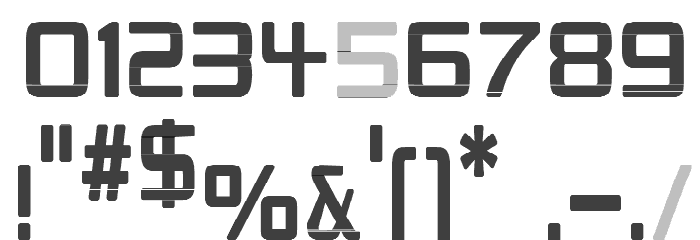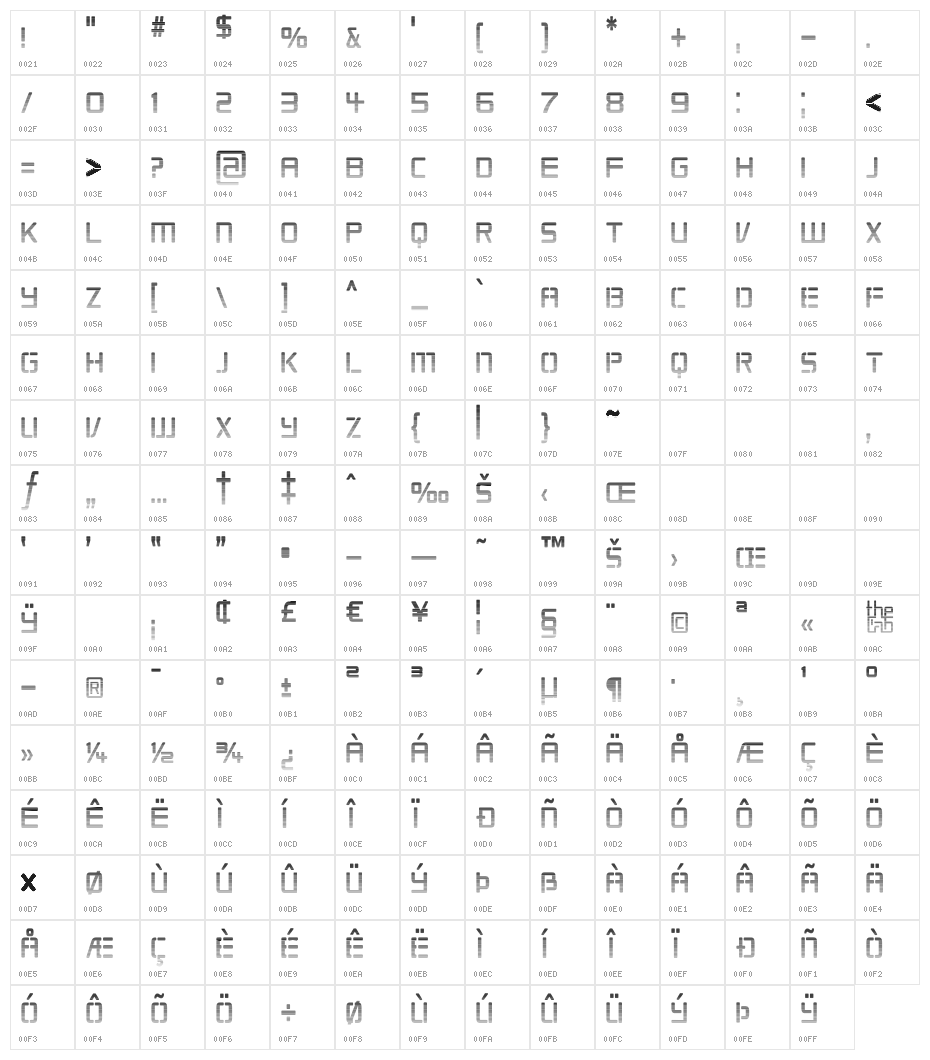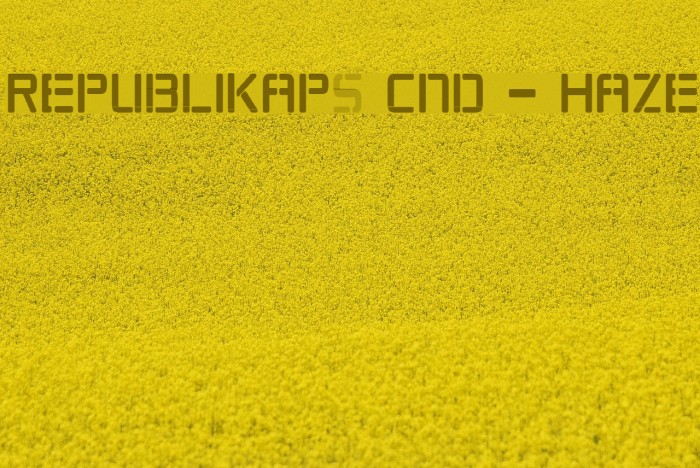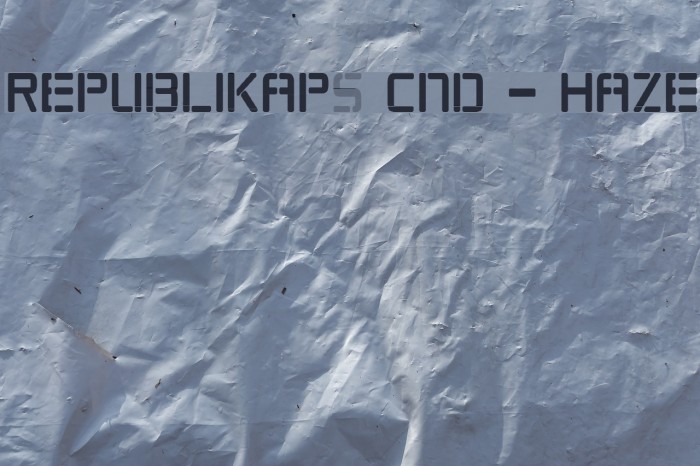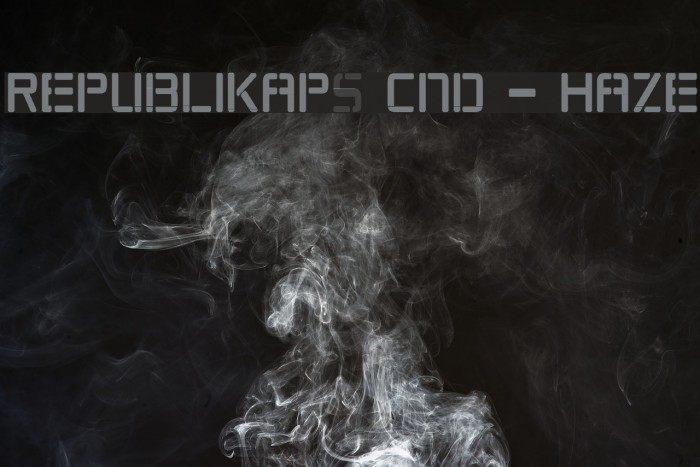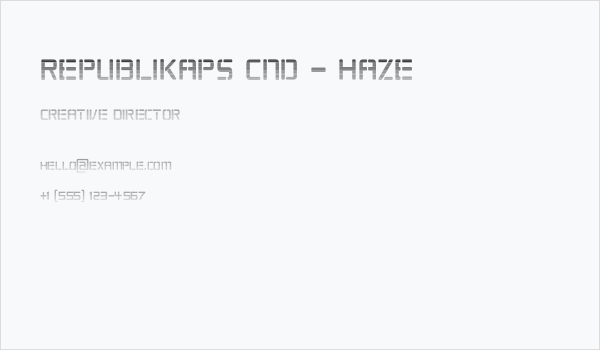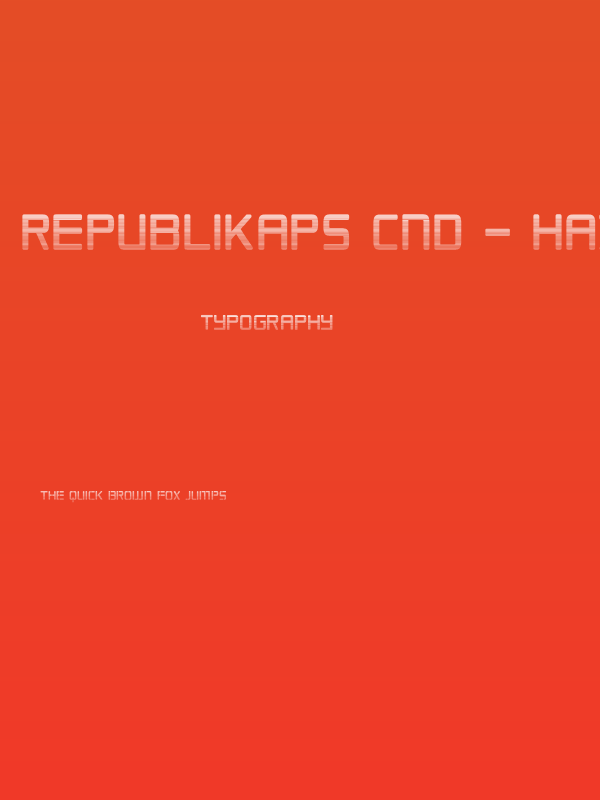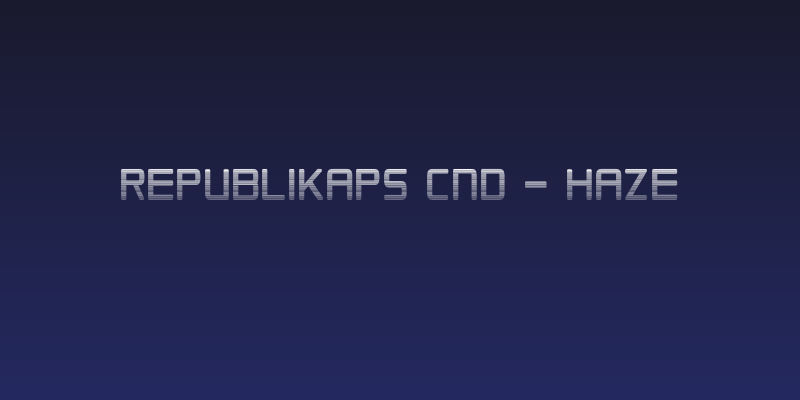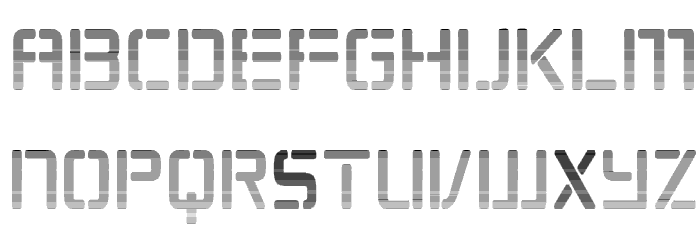
Republikaps Cnd - Haze Font
Republikaps Cnd - Haze Description
This font features a futuristic and geometric design with a condensed structure. The characters are composed of bold, straight lines with rounded corners, giving it a sleek and modern appearance. The uppercase and lowercase letters maintain a consistent height, contributing to a uniform look. The numbers and special characters are designed to match the overall style, with a focus on readability and aesthetic appeal. The font's unique style is enhanced by its gradient effect, adding depth and dimension to the characters.
Proposed ProjectsIdeal for technology branding, sci-fi themed projects, modern advertisements, and digital interfaces.